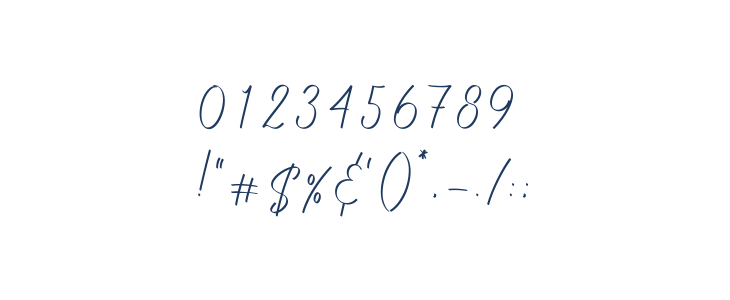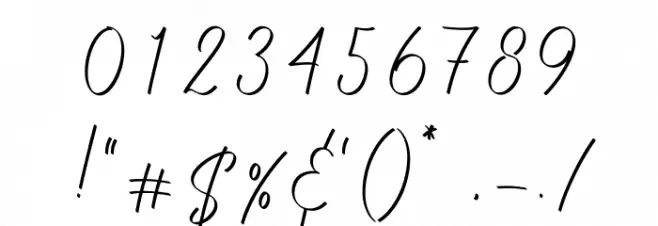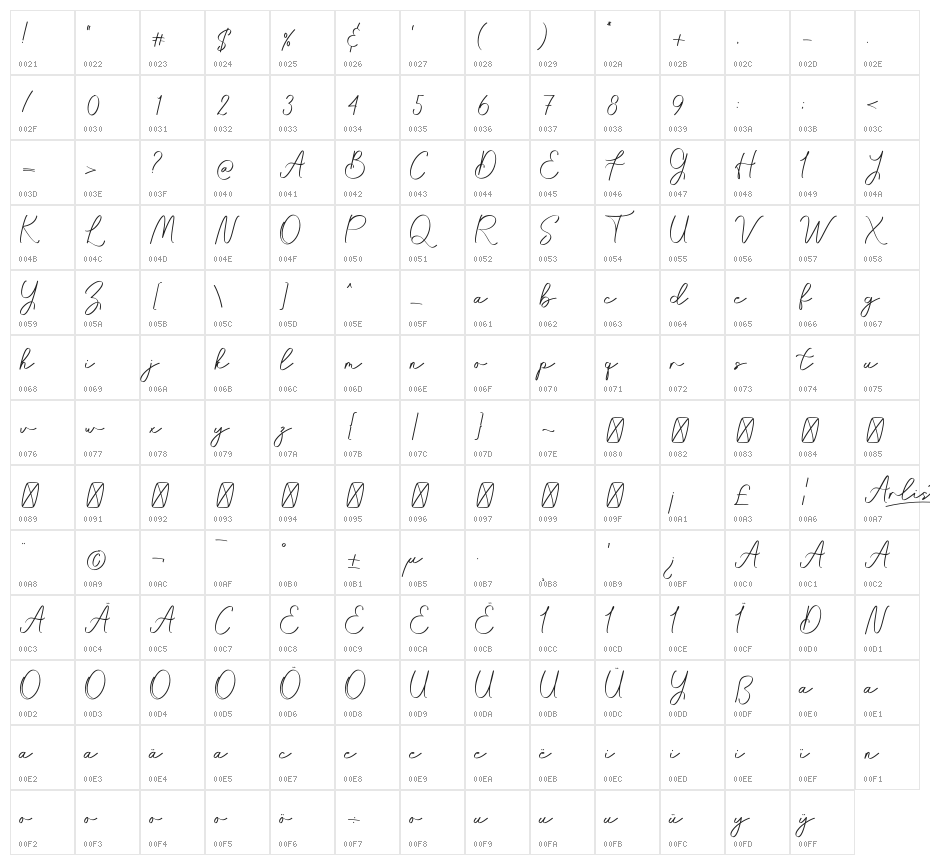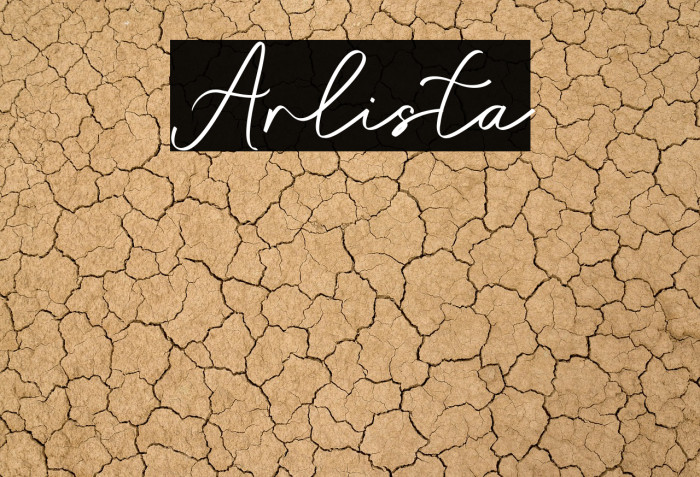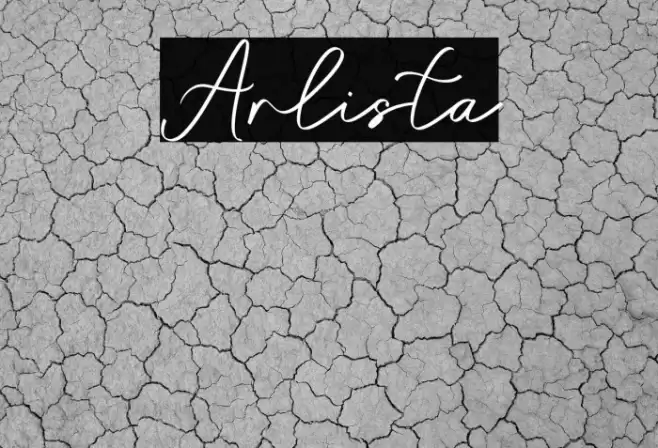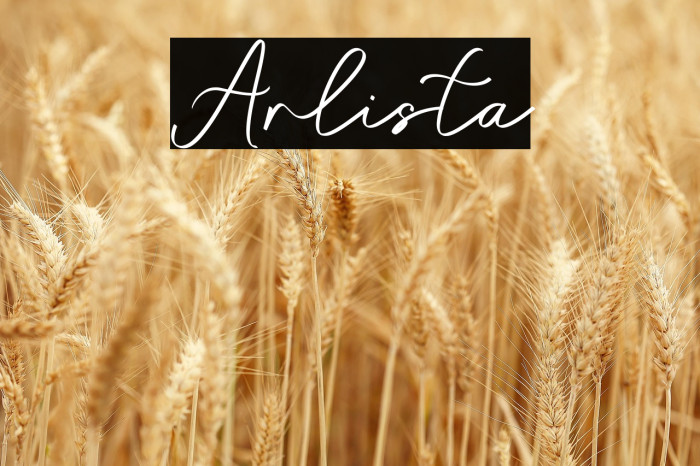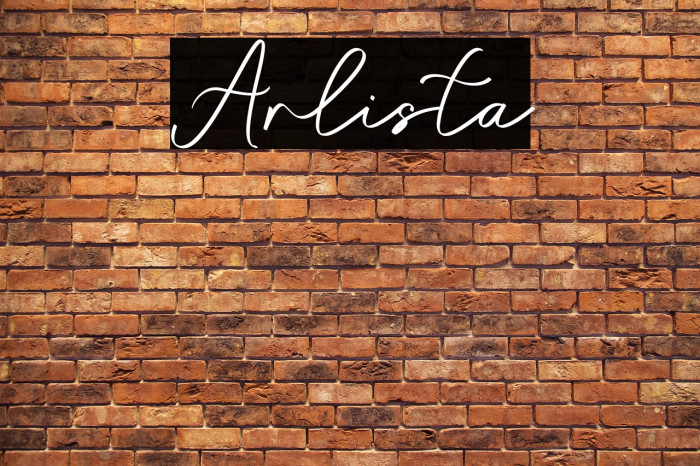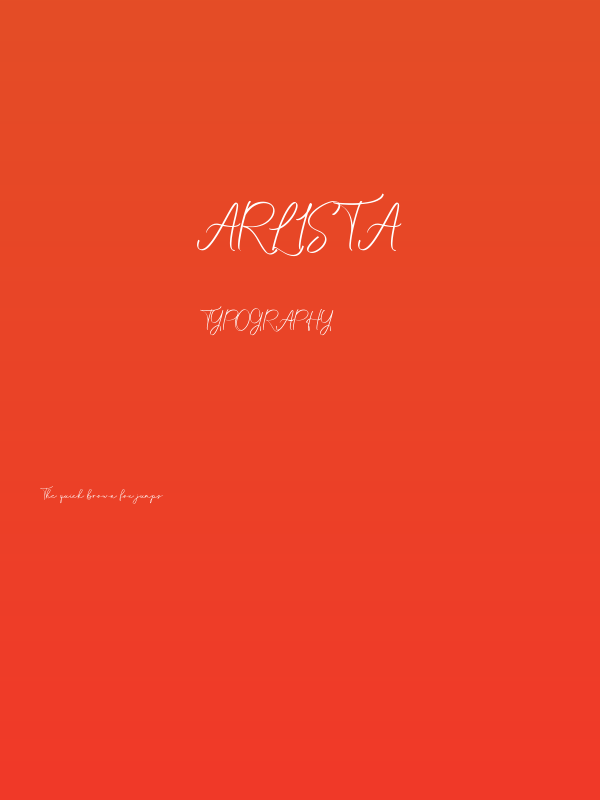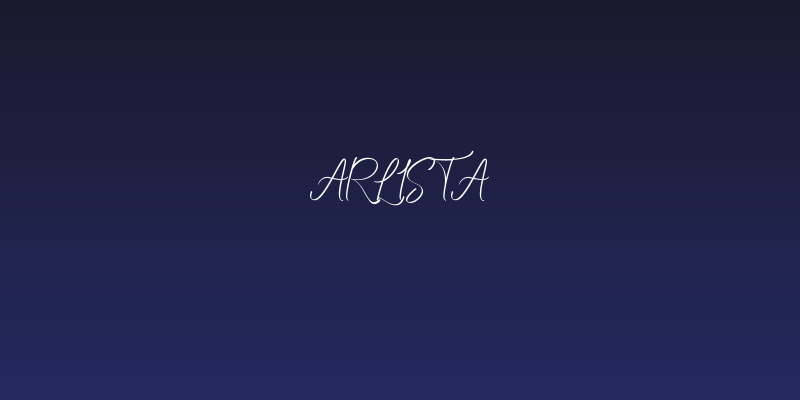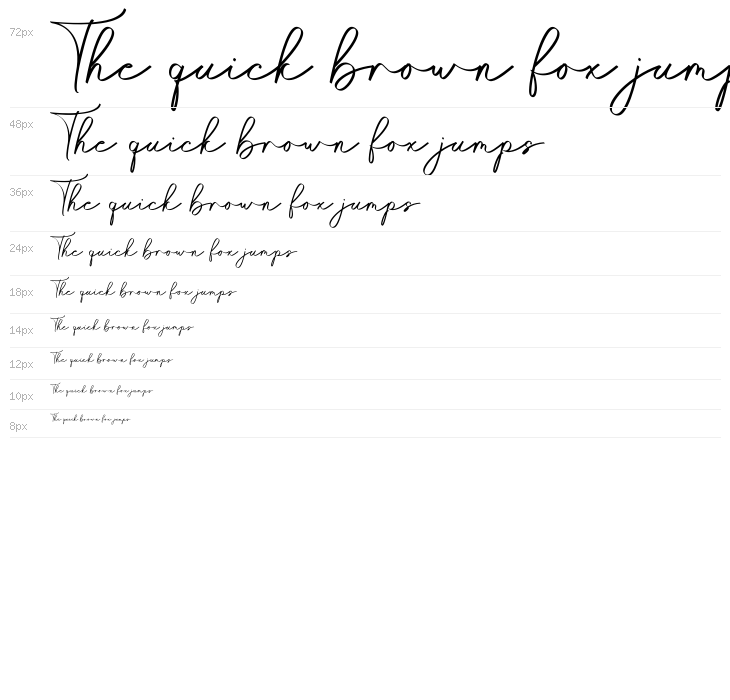
Arlista Font
Arlista Description
This elegant script font features a fluid, handwritten style that exudes sophistication and charm. The uppercase letters are gracefully elongated, with smooth, flowing lines that create a sense of movement and continuity. The lowercase letters maintain a consistent style, with gentle curves and loops that enhance the font's overall aesthetic. The numerals are distinct yet harmonious with the alphabet, offering a cohesive look. Special characters are thoughtfully designed to complement the script's elegance, making it suitable for a variety of applications. This font is perfect for projects that require a personal touch, such as invitations, greeting cards, and branding materials.
| Use Case | Headlines, Invitations, Branding |
| Proposed Projects | Ideal for wedding invitations, personal branding, greeting cards, and elegant packaging. |